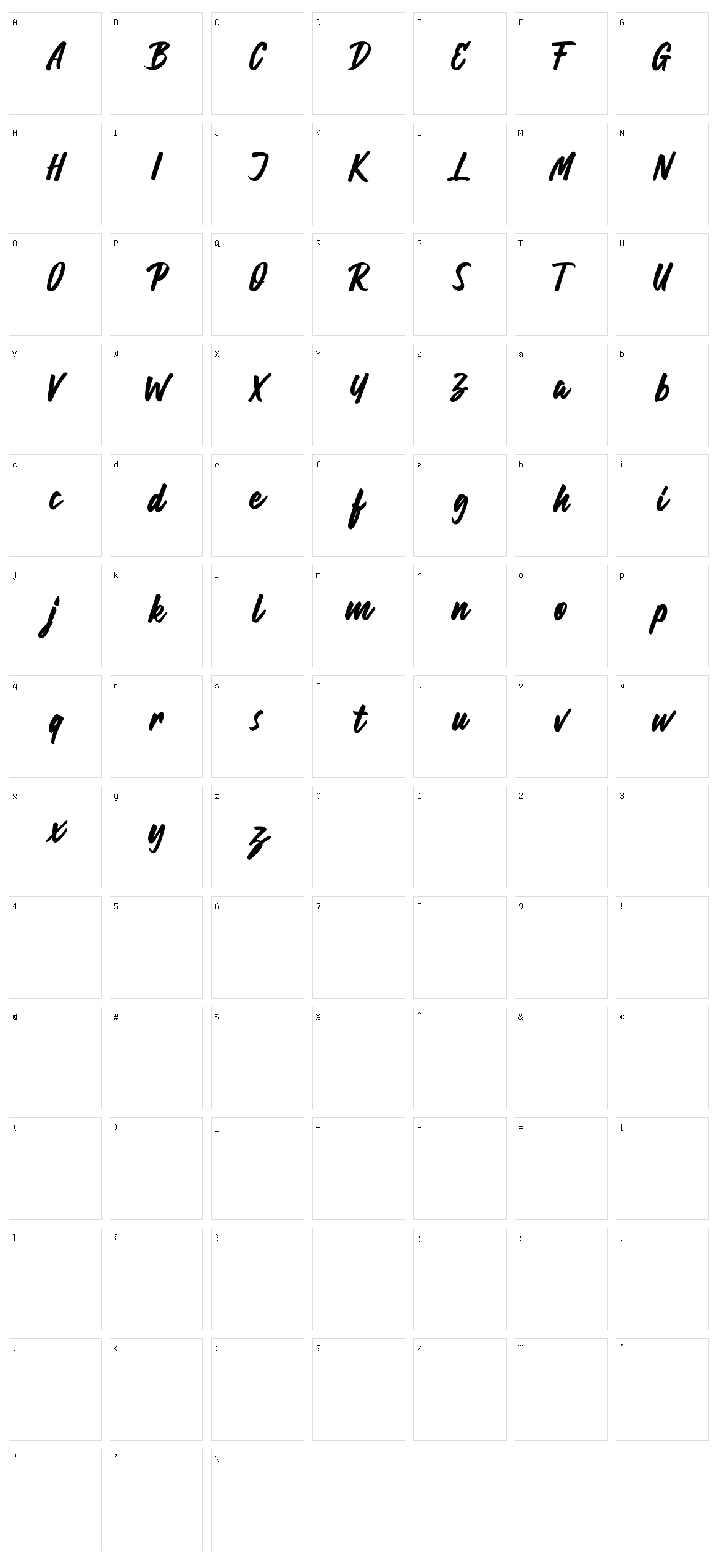
The free font Hillend is carefully designed by Typefar, showcasing a thoughtful balance of creativity and usability and falls under the Script font style. When you download the ZIP file, it contains only 440.86 KB of font files, making it lightweight and quick to download. Please review the license details below to understand permitted usage and distribution rights. If license information is not available, we recommend using this font for personal projects only or contacting the author directly for commercial usage permissions.